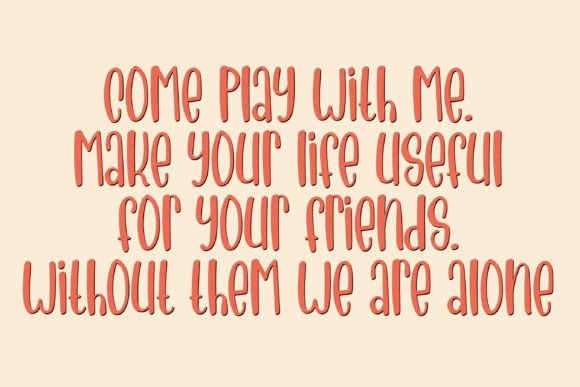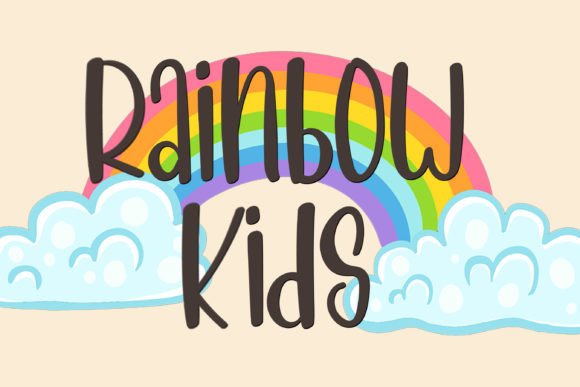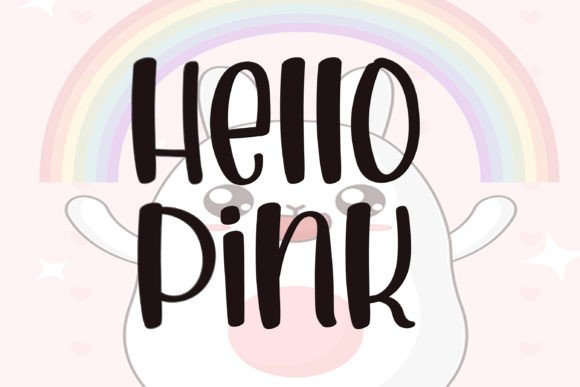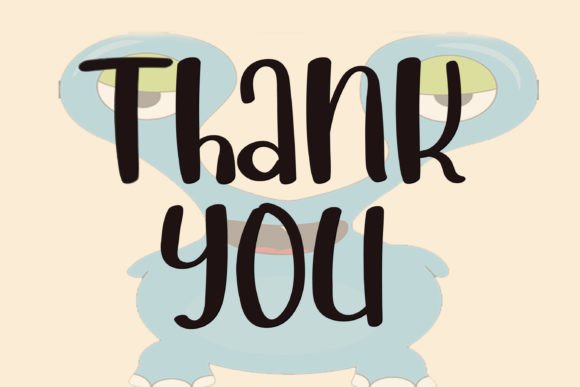
Introduction to Litle Monster Font
Litle Monster is a fresh and beautiful handwritten font, good for your design purposes such as Youtube banners, Cover Logo Mockups, Wedding Invitations, Id Cards, Flayer, and Crafts.
By using this font, your business will progress and develop Apart from that, this font is simple and unique.
Key Features of Litle Monster Font
Why Choose Litle Monster Font?
Litle Monster Font offers exceptional quality and versatility, making it a valuable addition to your design toolkit. Whether you’re creating for personal projects or commercial use, Litle Monster Font delivers professional results.